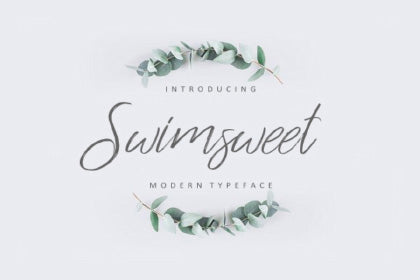
Free Swimsweet Script Font Demo
Free swimsweet script font demo for graphic designers that need to present their work in a professional way. Download this free font from the original source of Free Design Resources. This is absolutely fancy font so you can easily make world-class designs.